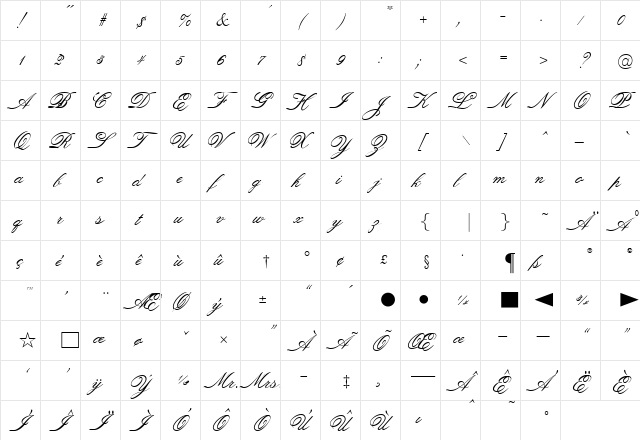
OPTIOldF Script
Design Context for OPTIOldF Typeface
OPTIOldF flows with the natural rhythm of handwritten lettering, making it ideal for designs that call for warmth and personal expression.
Font Pairing: Combine OPTIOldF with a simple geometric sans for maximum contrast — the tension between flowing curves and clean structure is a classic typographic pairing.
Pro Tip: Pair OPTIOldF with a clean sans-serif for supporting text. The contrast between fluid script and geometric structure creates an elegant typographic hierarchy.